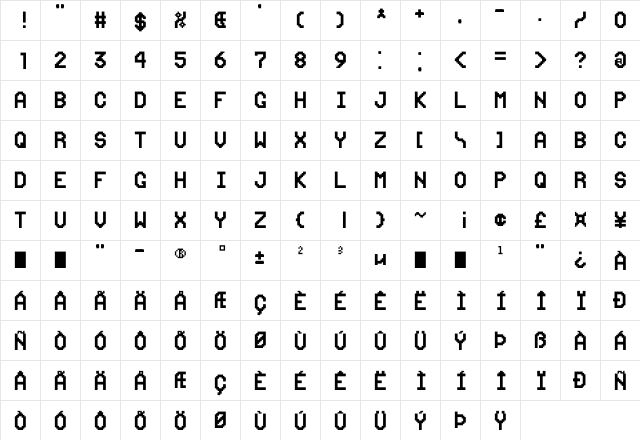
Browser-Cyberlink-New Regular
Design Context for Browser-Cyberlink-New Typeface
Browser-Cyberlink-New channels digital-age aesthetics through its sharp, structured letterforms — ideal for brands that want to signal innovation.
Pro Tip: Try Browser-Cyberlink-New with generous letter-spacing in UI labels and navigation — the geometric forms benefit from room to breathe.